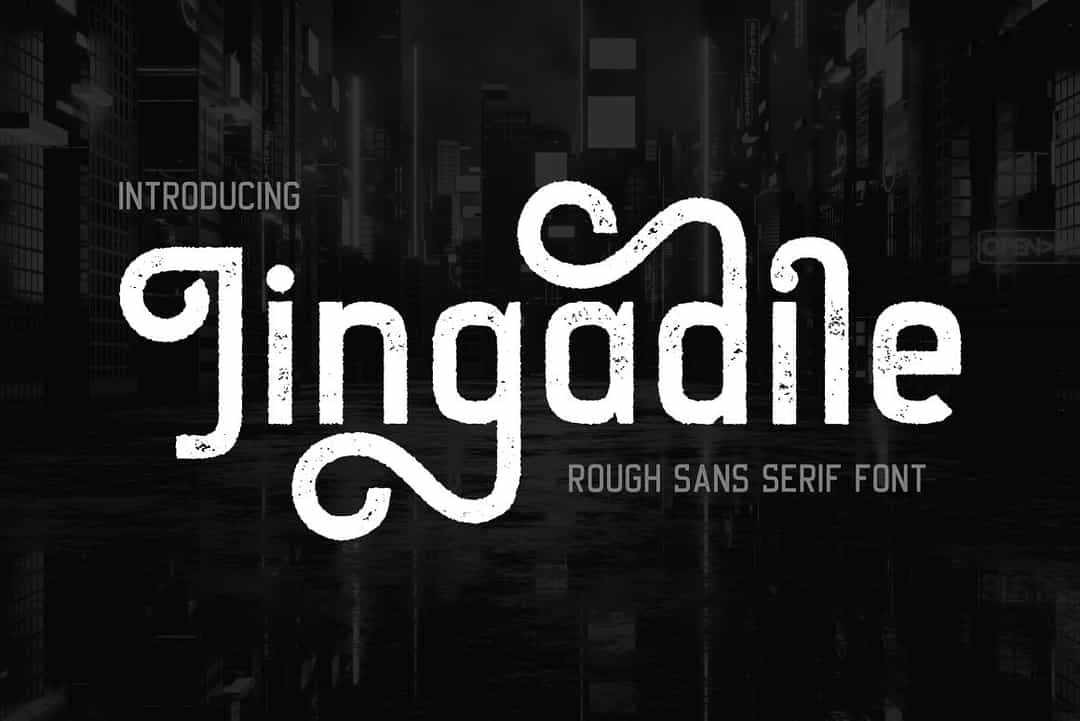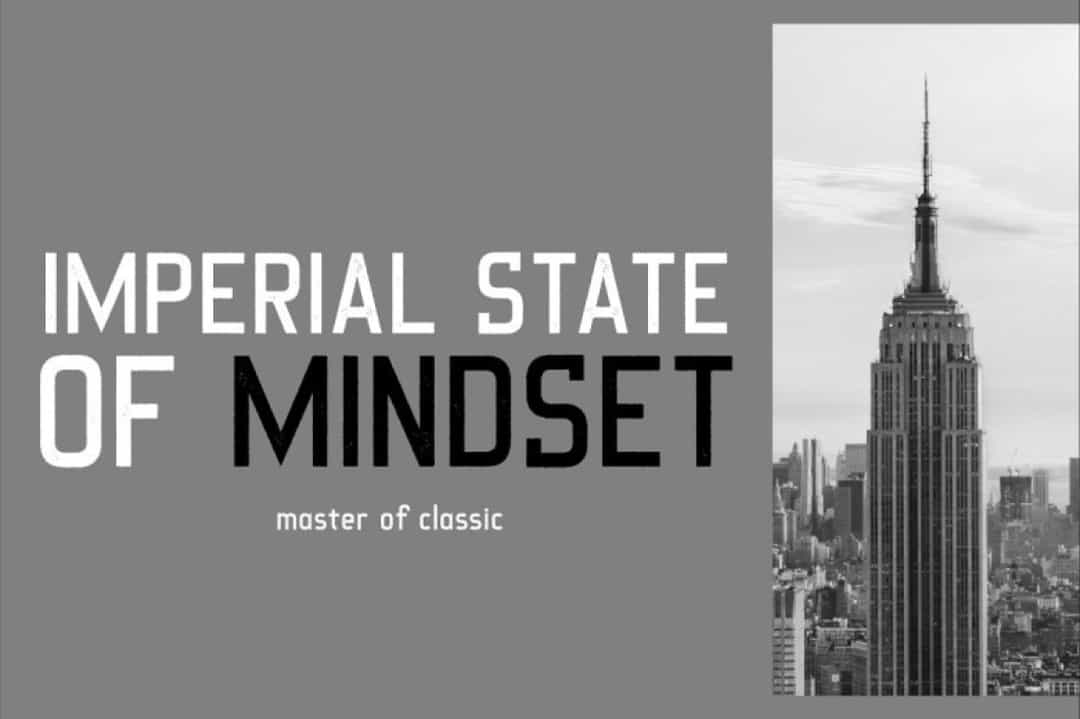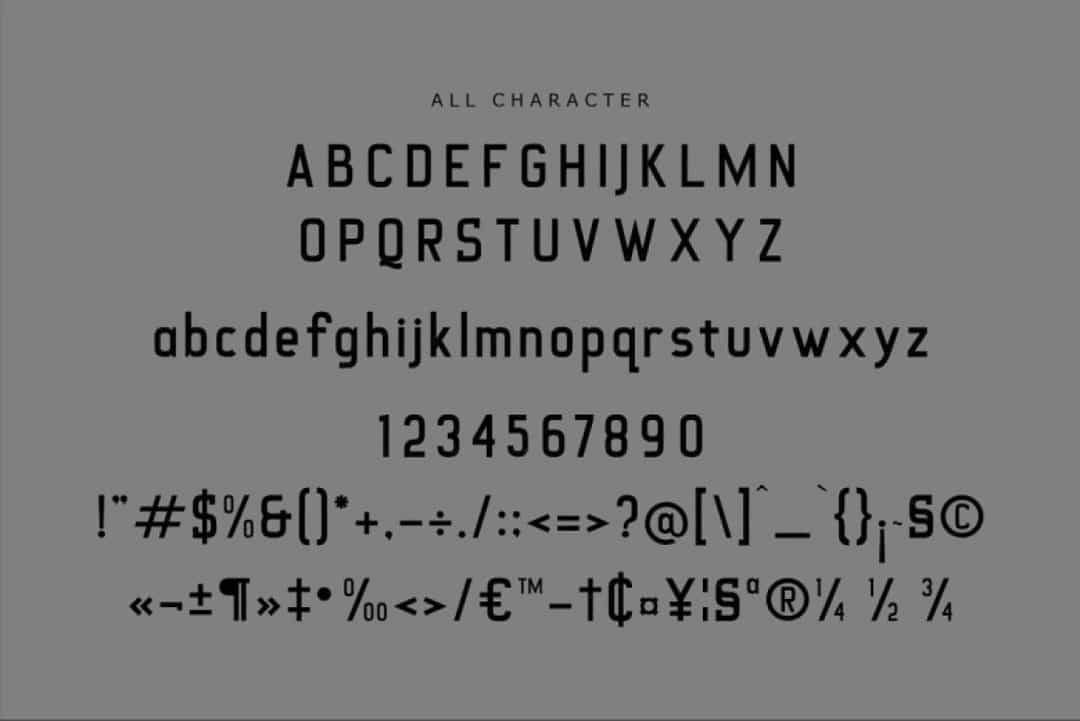
Jingadile Font, created by Storytype, is an elegant sans-serif font designed with modernity in mind. This font can be used to craft classy logos, book or film name designs, fashion brand clothing designs, magazines articles and lettering as well as quotes.